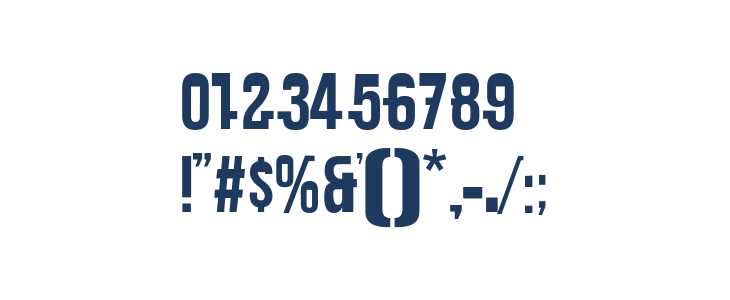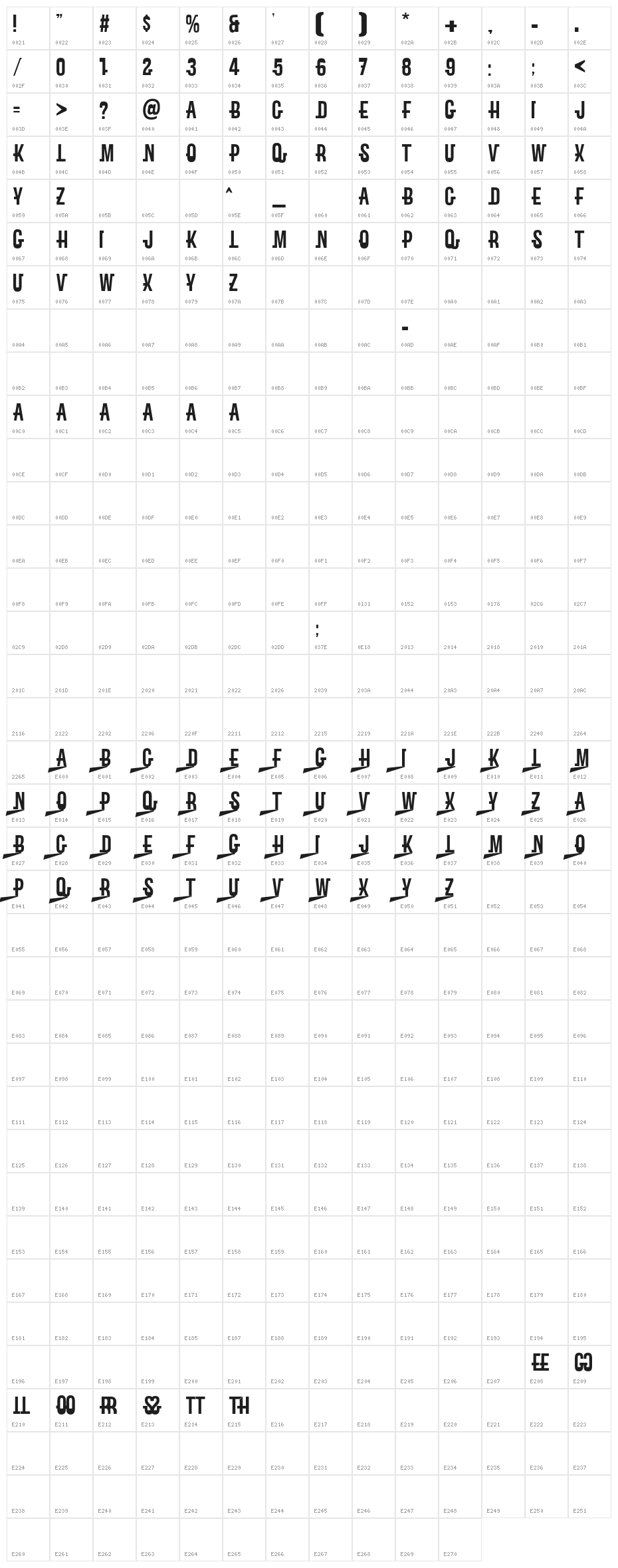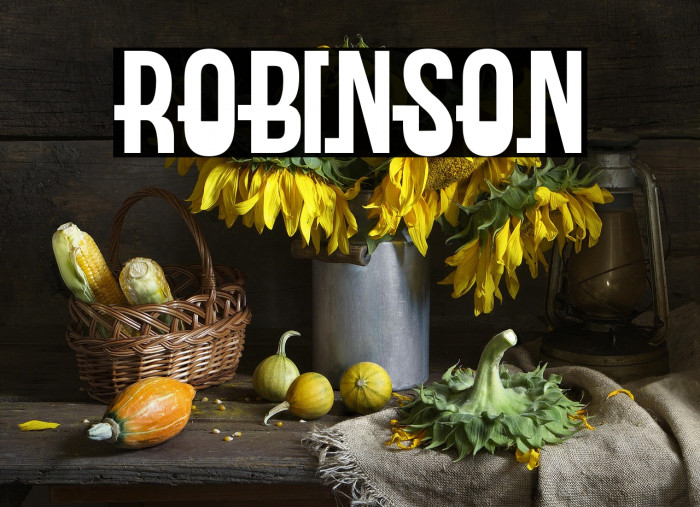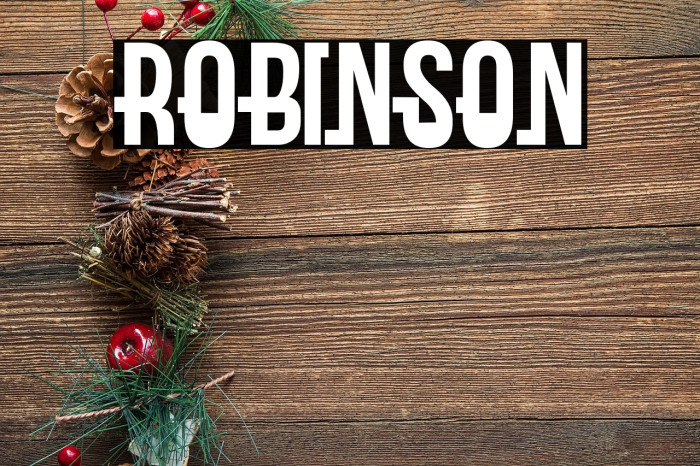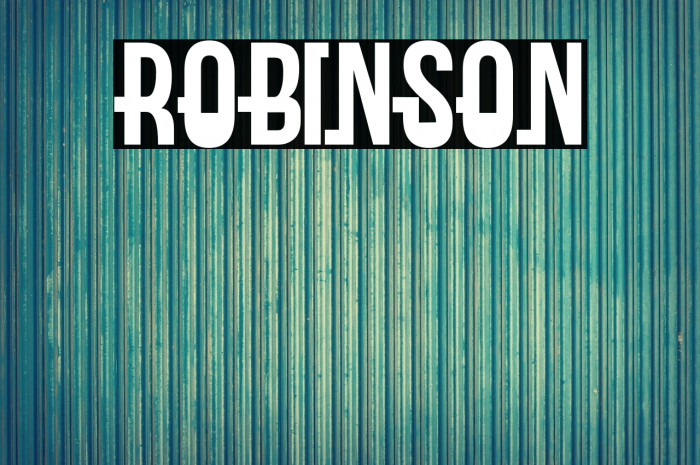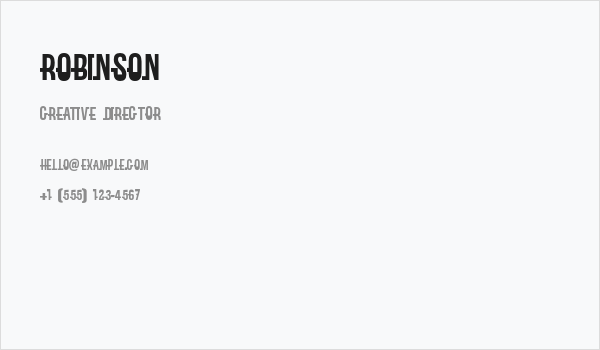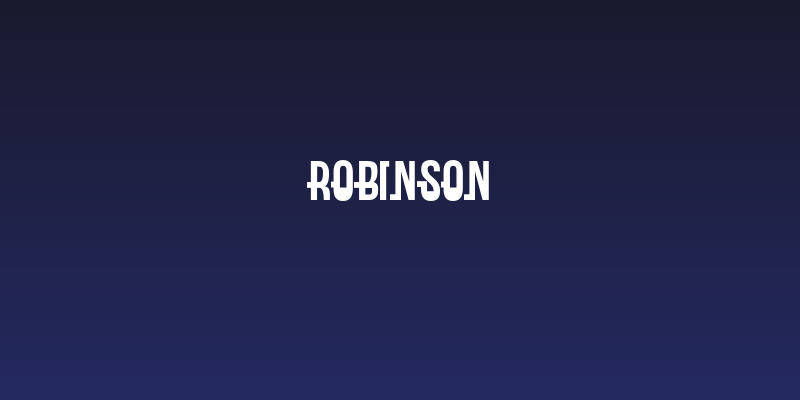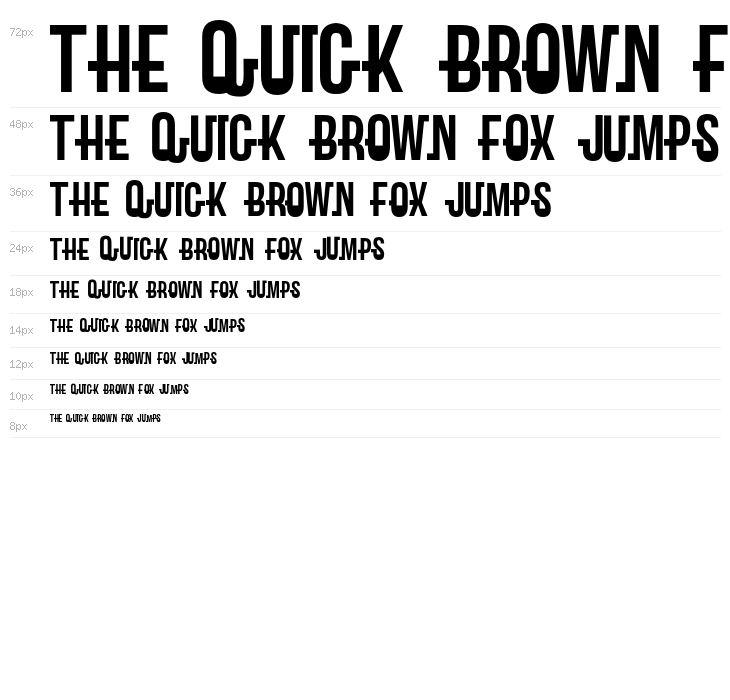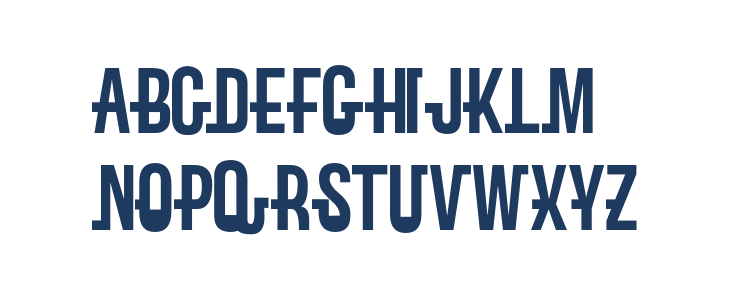
Robinson Font
Robinson Description
This font is a bold and impactful display typeface characterized by its strong geometric shapes and high contrast. The letters are tall and narrow, with a condensed width that gives a powerful and assertive appearance. The uppercase and lowercase letters share a consistent design, maintaining a uniform stroke width throughout. The numbers and special characters are equally bold, ensuring they stand out in any context. This font is ideal for making a statement, with its striking presence and modern aesthetic.
| Proposed Projects | Ideal for posters, headlines, branding, and advertising where a strong visual impact is needed. |